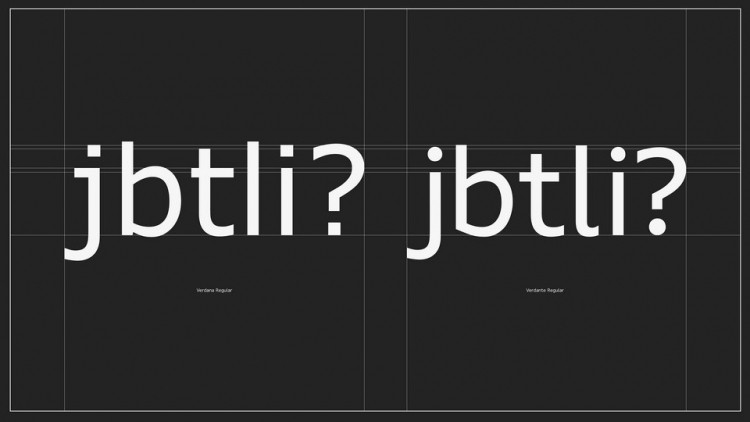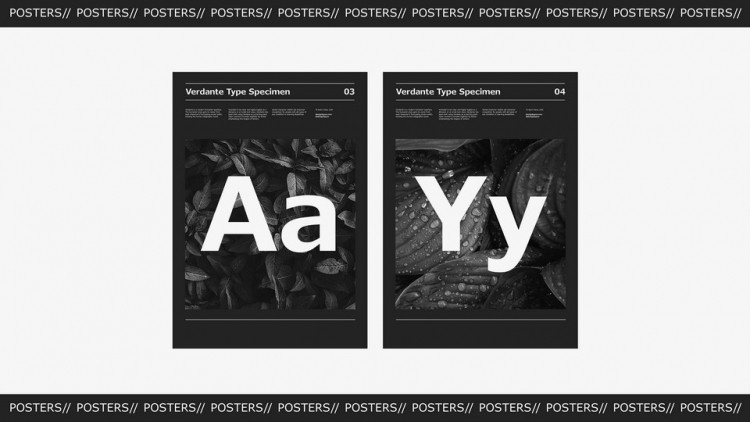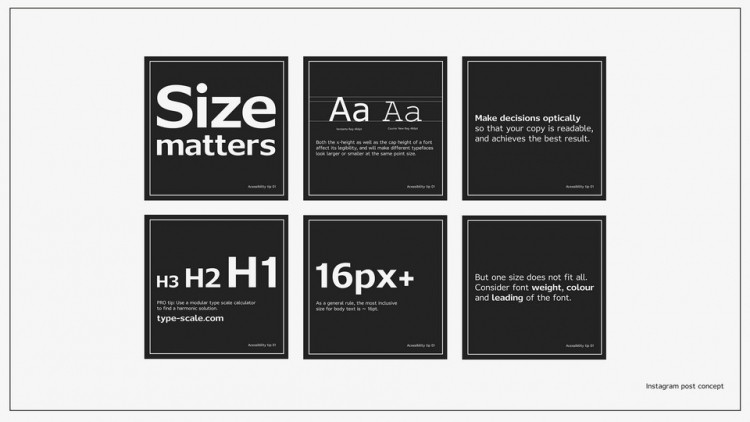
Verdante Sans Serif Font
This typeface is sans serif collection font created by Pavils Vorobjovs with natural movement make looks elegant, classy and beauty for your project. Verdana might not be the most aesthetic typeface, but its organic, humanist characteristics like its large x-height, open counters and loose spacing make it readable in small sizes on low resolution computer screens.
It has survived through the decades and gained its place in the hall of fame of accessible typefaces. But it is also one people love to hate.
Verdante is a refresh of its predecessor – keeping all the good bits, but also addressing some of the less appealing elements.